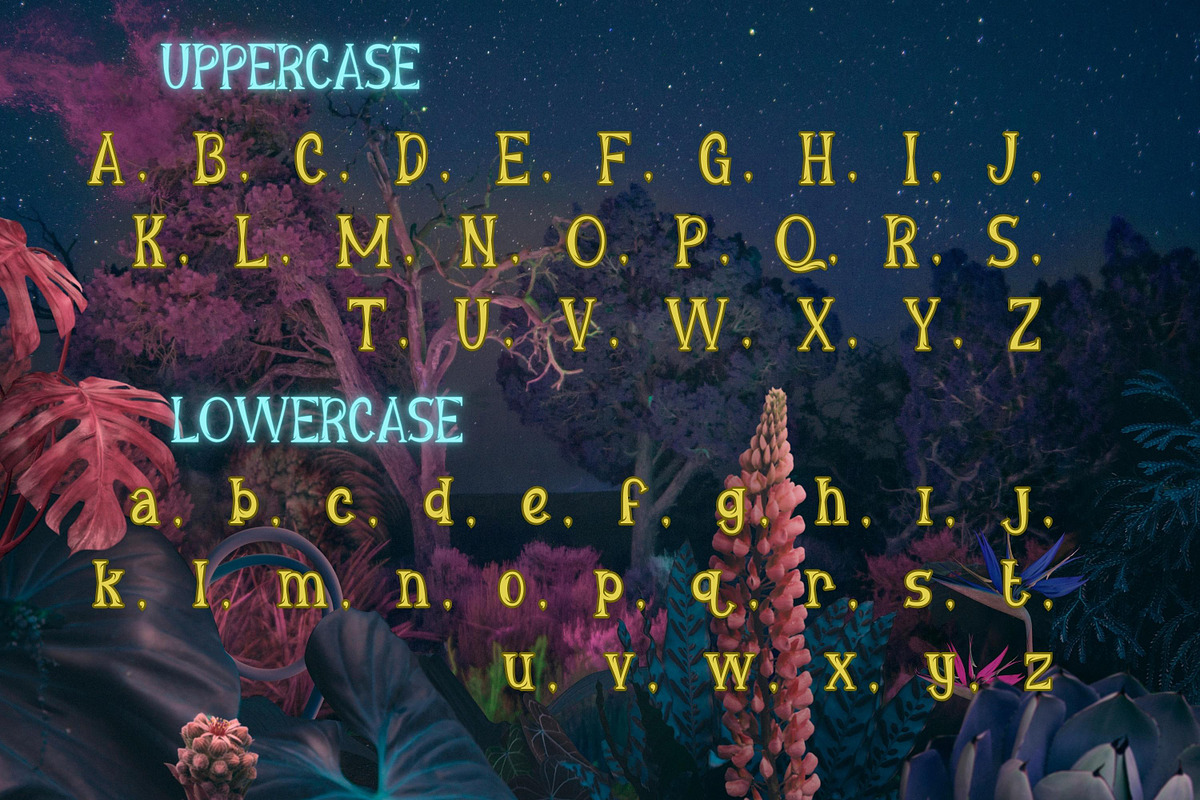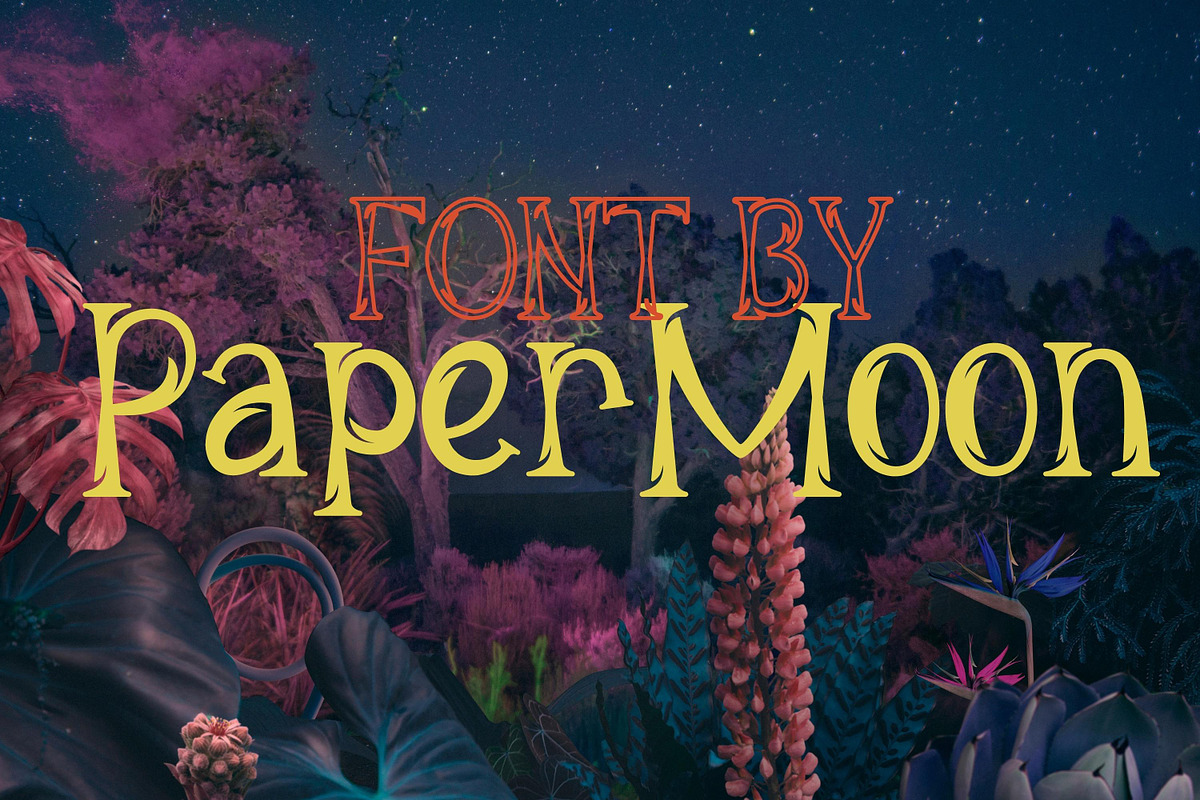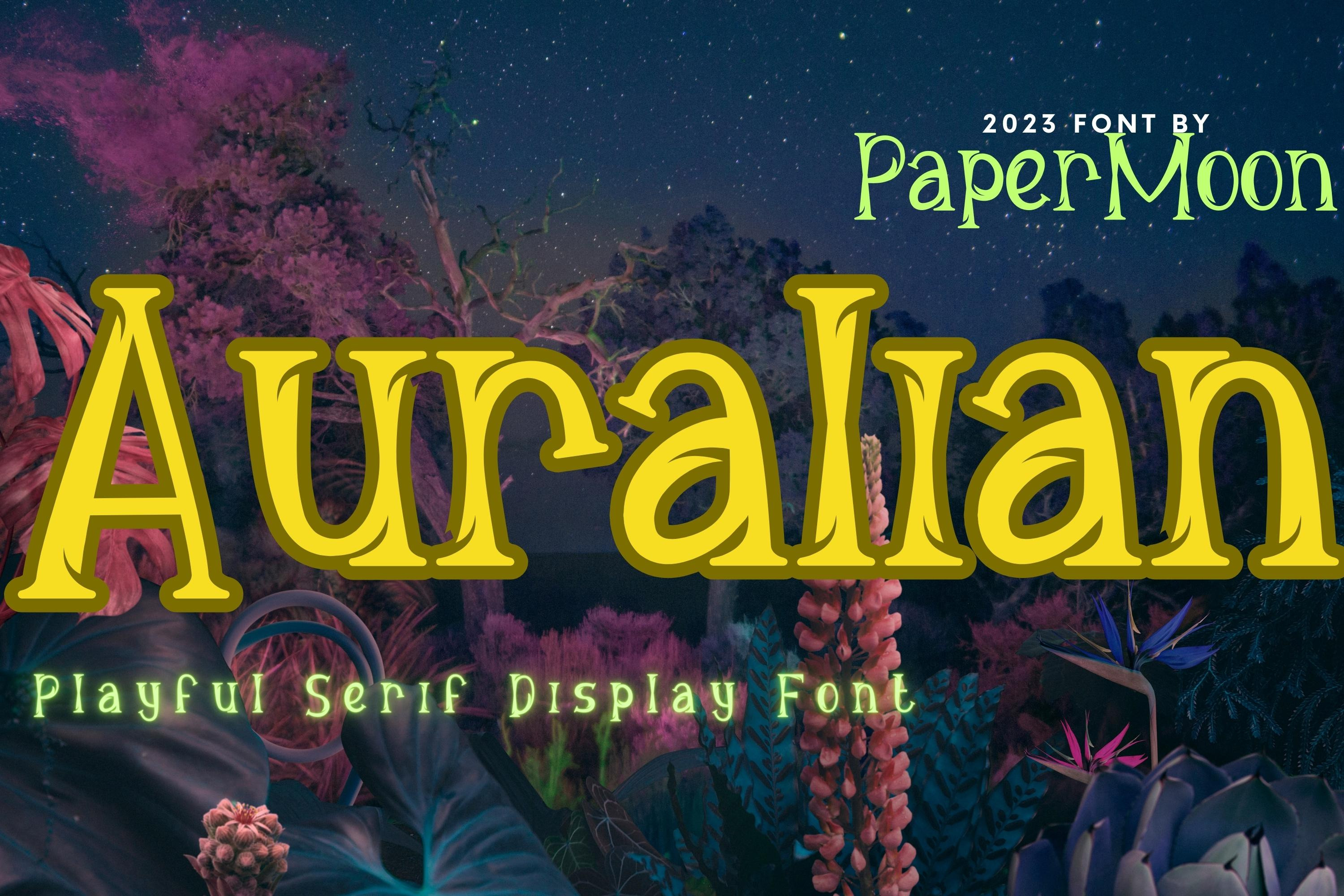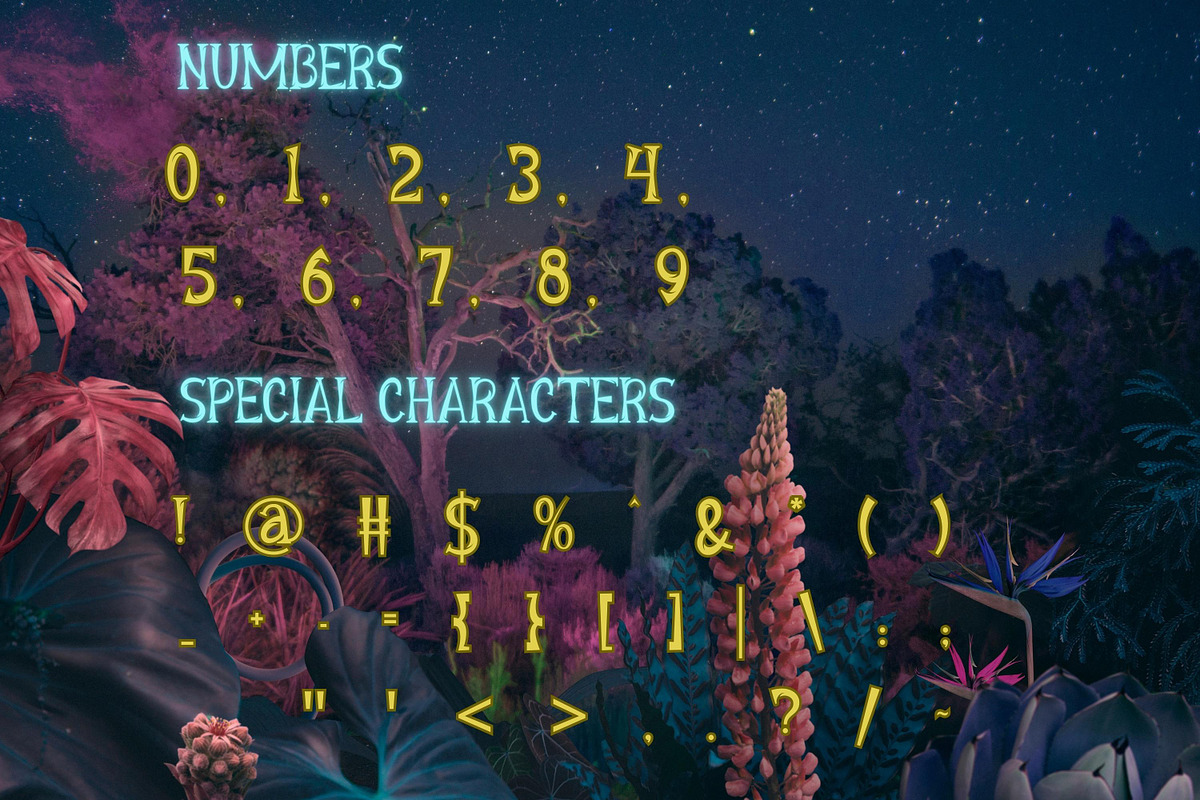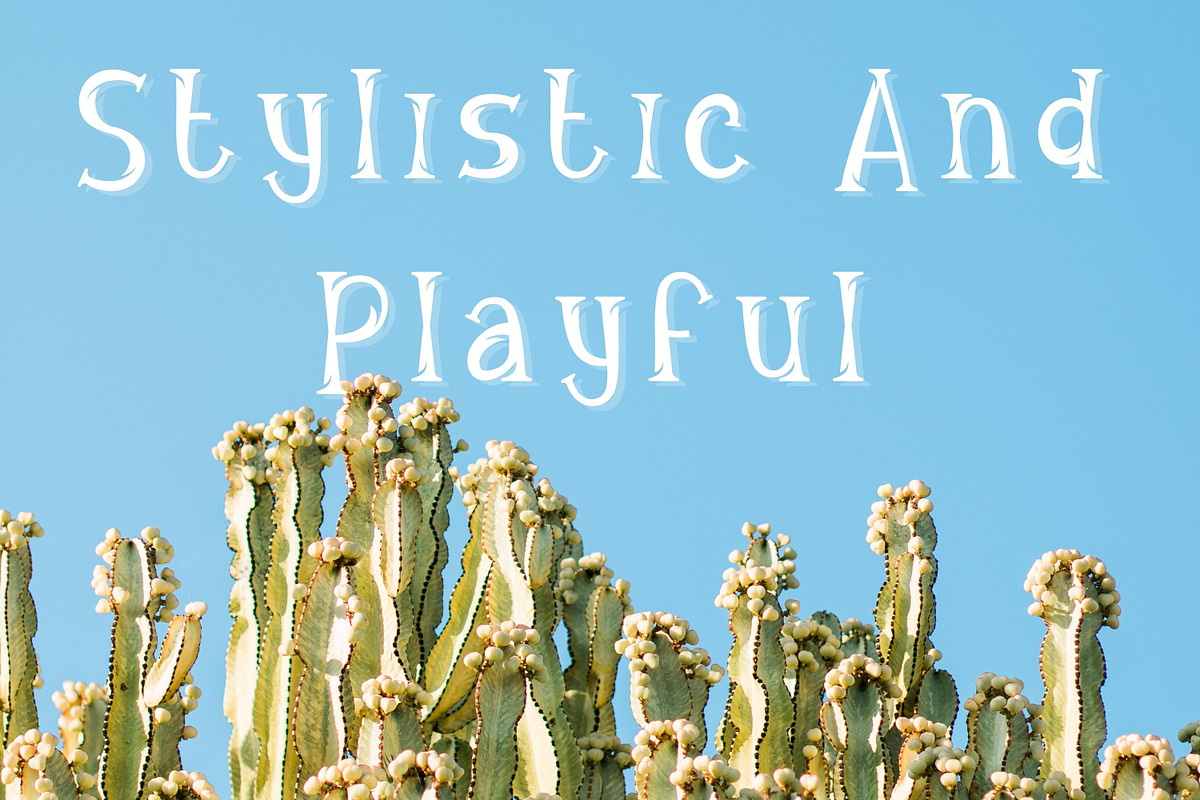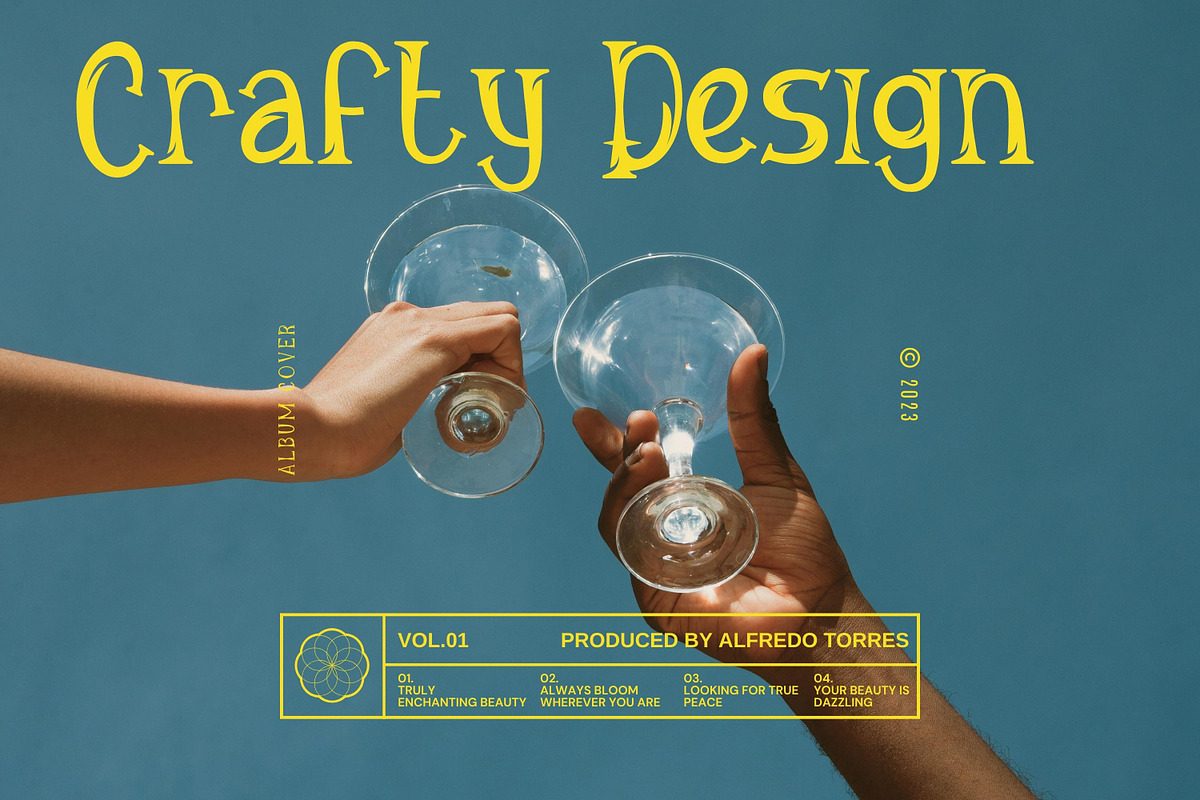
Auralian - Playful Display Font
AURALIAN PLAYFUL SERIF DISPLAY FONT
Auralian Playful Serif Display Font is a decorative serif typeface available in OTF and TTF formats. It features unique embellished characters and is PUA encoded for easy access across compatible software on Mac and PC.
- Full character set with embellished decorative elements
- Serif display style
- Decorative embellished characters
PERFECT FOR
- Children’s designs and school projects
- Comics and cartoon artwork
- Packaging and product branding
- Birthday invitations and greeting cards